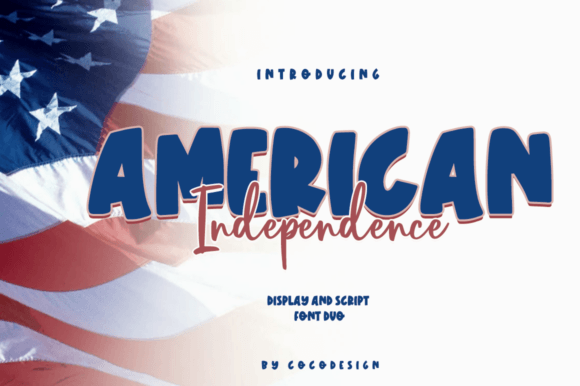
Discover the Delightful Duo: American Independence Font
I’ll never forget the design struggle I faced while working on a whimsical kids’ party invitation project. My client wanted something that captured the essence of childhood fun, but I was stuck on finding the perfect font. That was until I stumbled upon the charming American Independence font duo. It was love at first sight! ✨ The delightful combination of contemporary allure and playful charm instantly elevated my design, and I knew I had to share this treasure with fellow creatives.
An Honest Review: What I Love and What to Consider
- ✨ **Unique Character**: American Independence boasts an impeccably fetching aesthetic that stands out in any design.
- ✅ **Versatility**: This font duo flawlessly adapts to various themes, from bubbly kids’ gatherings to chic t-shirt prints.
- 🌈 **Playful Panache**: It injects a dash of whimsy into countless creations, making it perfect for engaging academic endeavors, festive seasonal adornments, and more.
- 🤔 **Limited Serif Options**: While its sans-serif style is stunning, those looking for a serif font might find it limiting.
- ⚠️ **Glyph Variety**: Although it offers a range of glyphs, some users might find the selection a tad restricted for very specific design needs.
American Independence was crafted with the intention of capturing the carefree spirit of summer and the whimsy of childhood. Its designers aimed to create a font that not only stood out for its unique character but also brought joy and playfulness to various design projects. The result is a versatile font duo that embodies both contemporary allure and nostalgic charm.
| Font Name | American Independence Font |
| Author | cocodesign |
| Is American Independence suitable for professional projects? | Absolutely! Its unique character and versatility make it perfect for a wide range of professional applications, from marketing materials to branding. |
| Does American Independence support OpenType features? | Yes, American Independence takes advantage of OpenType features, allowing for a range of stylistic alternates and glyphs to enhance your designs. |
| Is American Independence easy to pair with other fonts? | Yes, due to its clear and distinctive character, American Independence pairs well with a variety of fonts, making it easy to find complementary fonts for your designs. |
American Independence font duo is more than just a font; it’s your immediate leap to an enhanced design sensibility. Whether you’re a designer, crafter, or creative hobbyist, this delightful duo has the potential to transform your projects with its unparalleled charm and style. Discover a world where charisma meets style, and elevate your designs to new heights of creativity and fun!